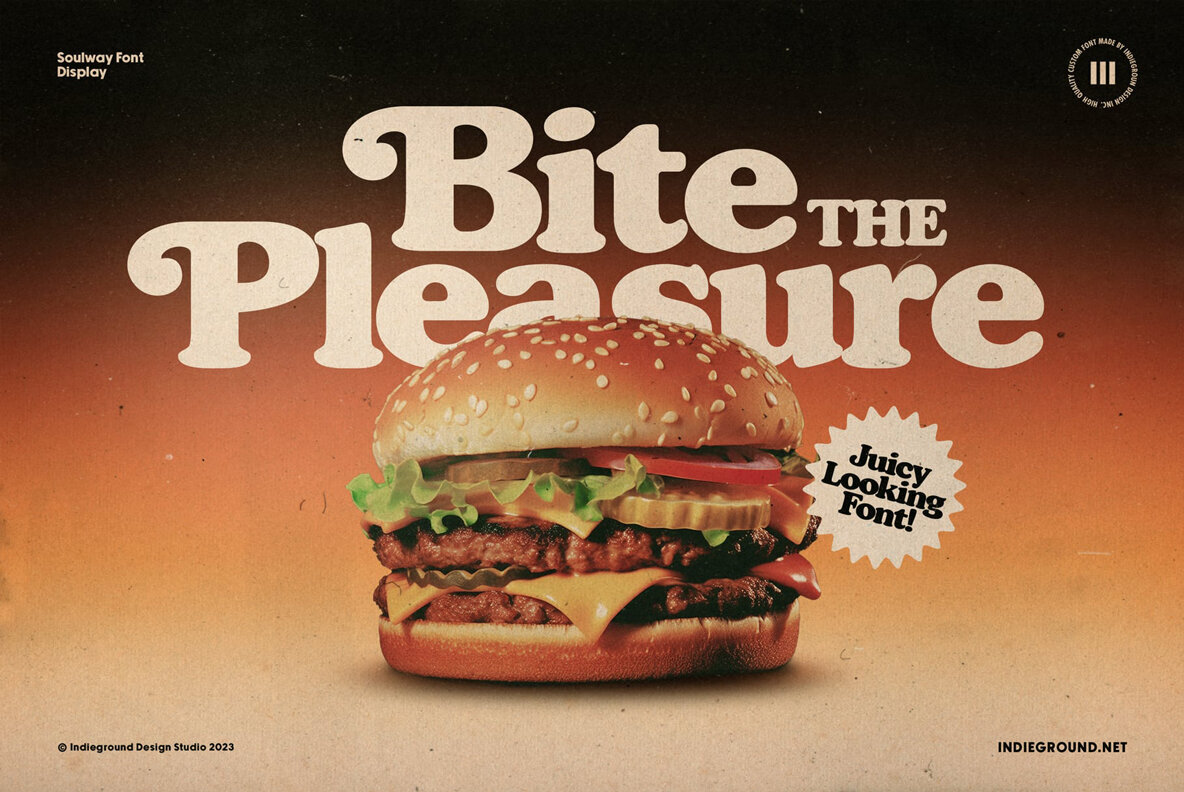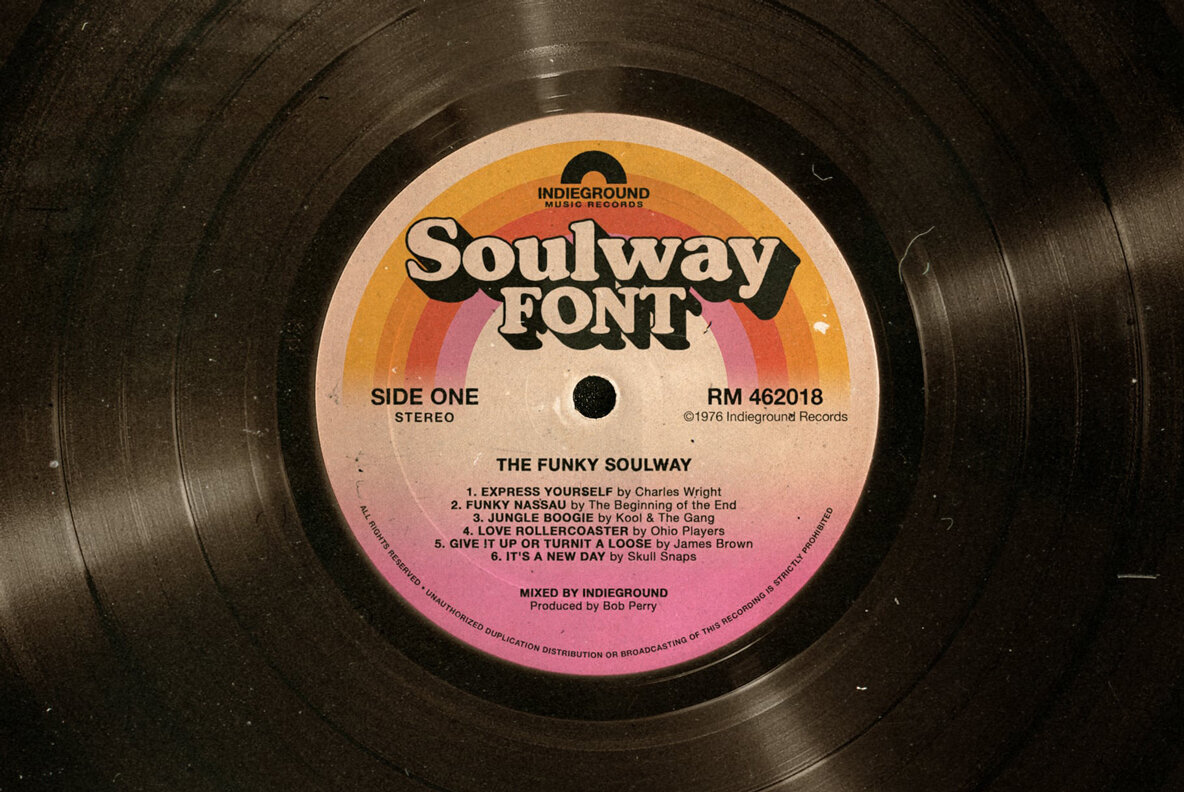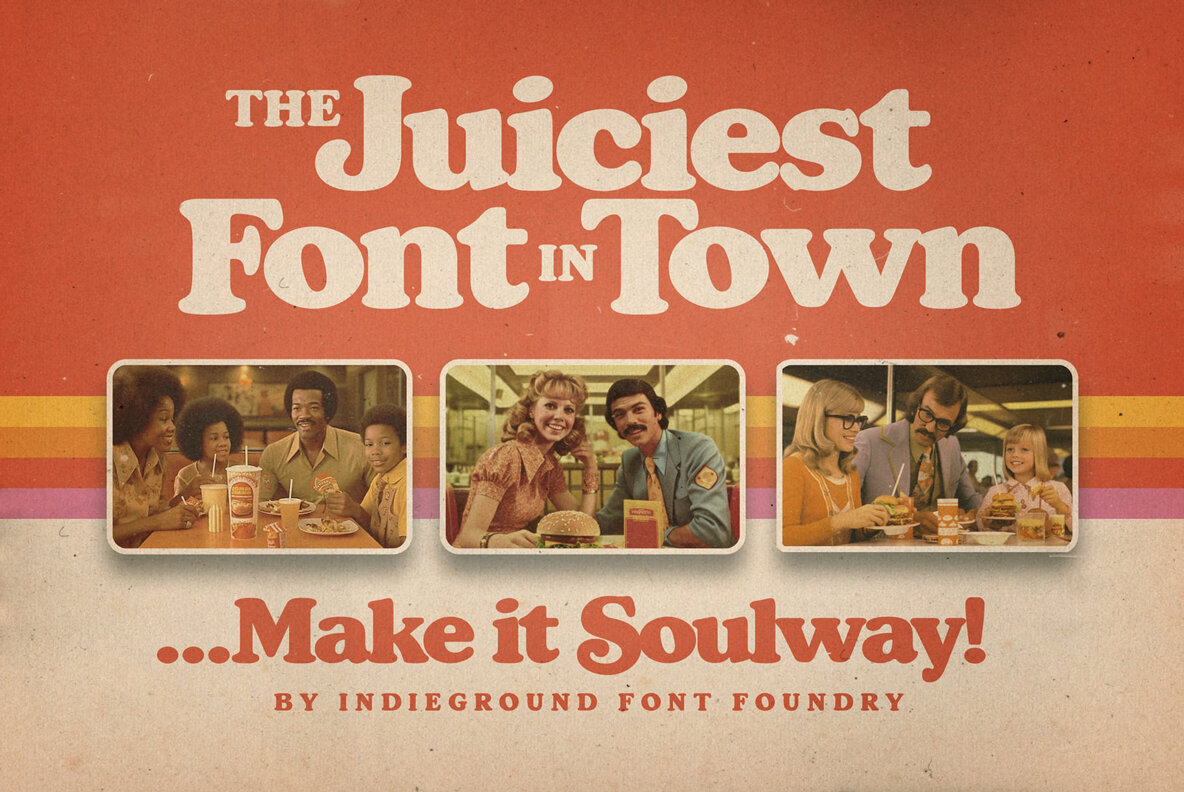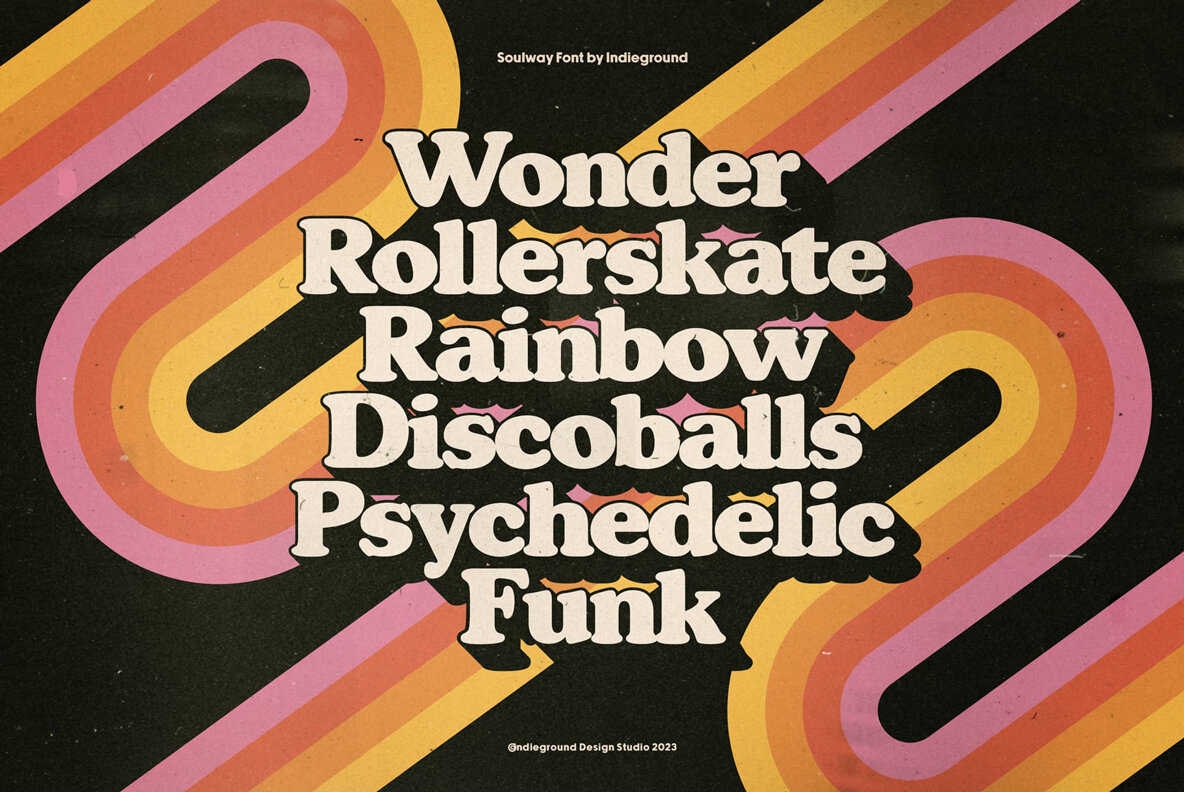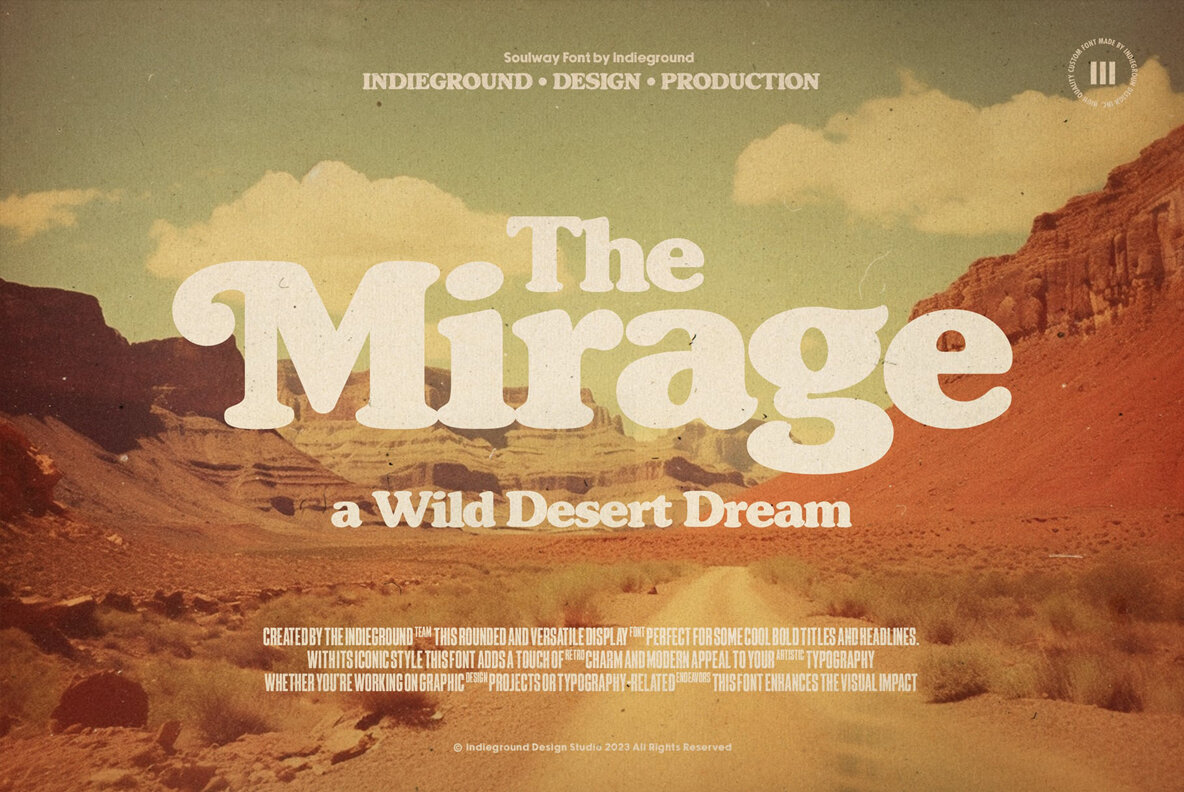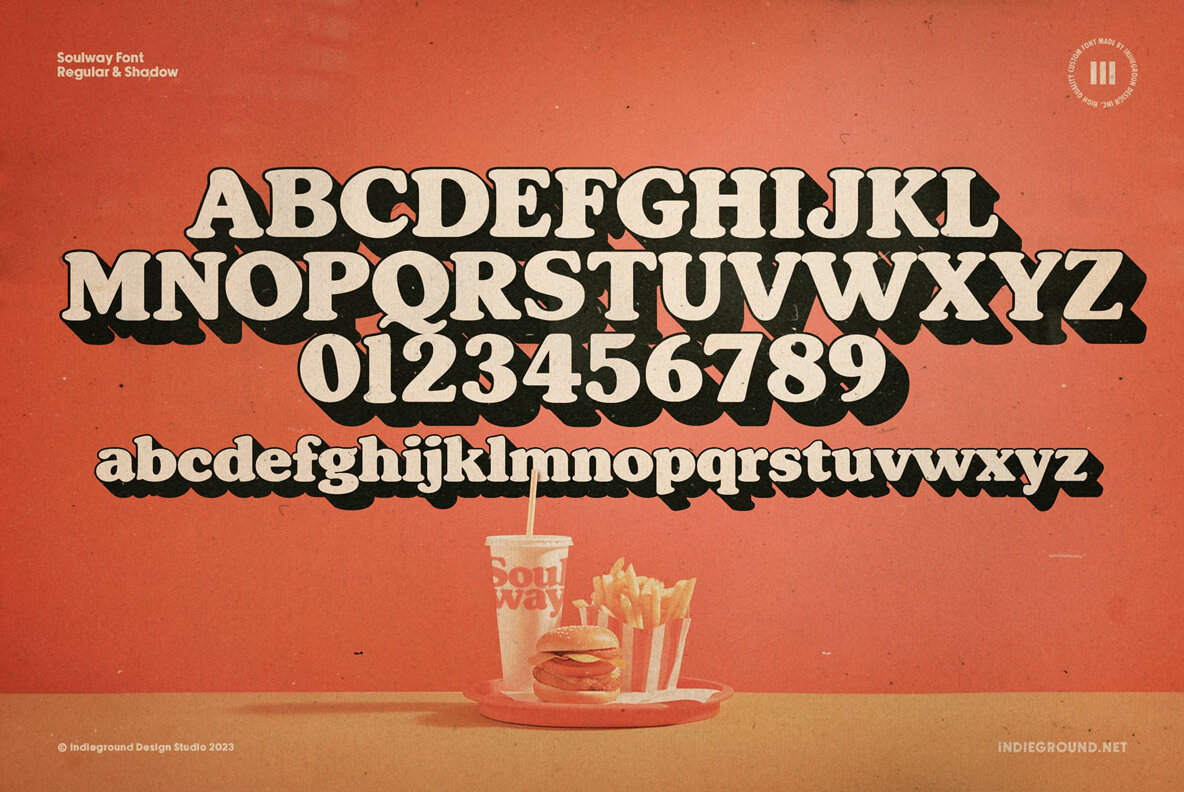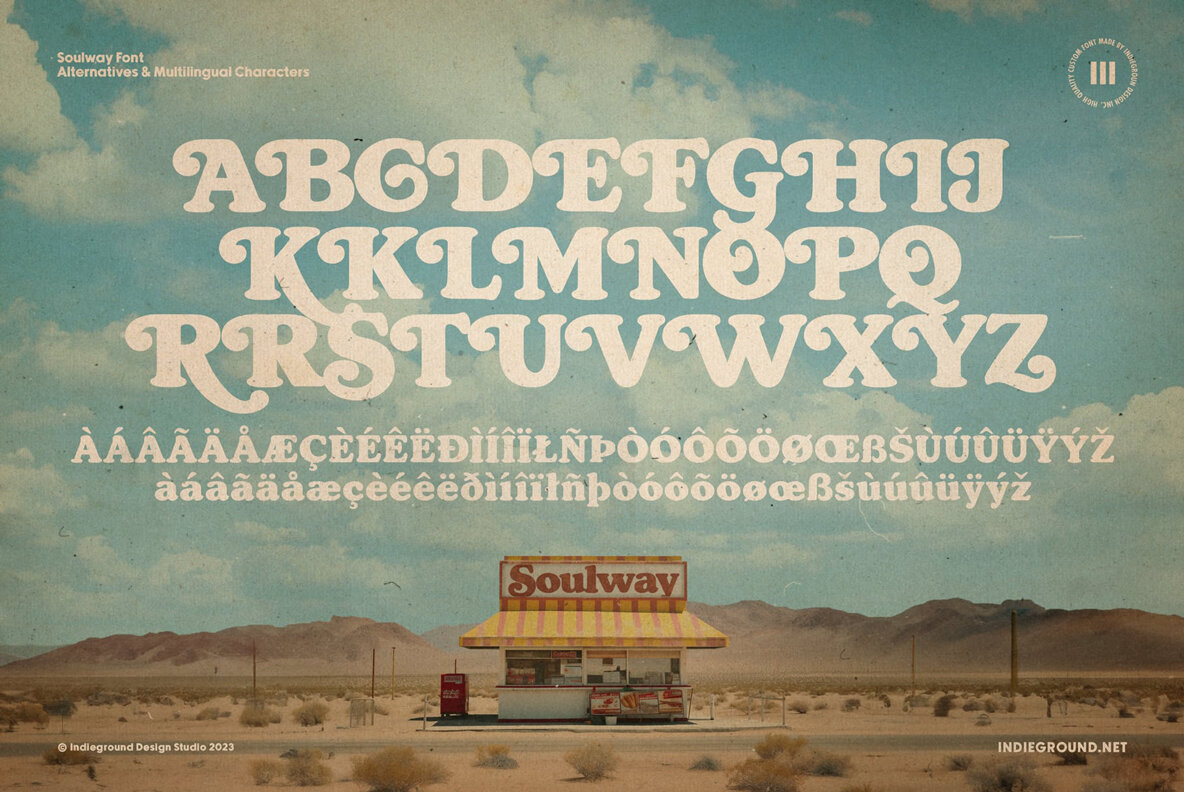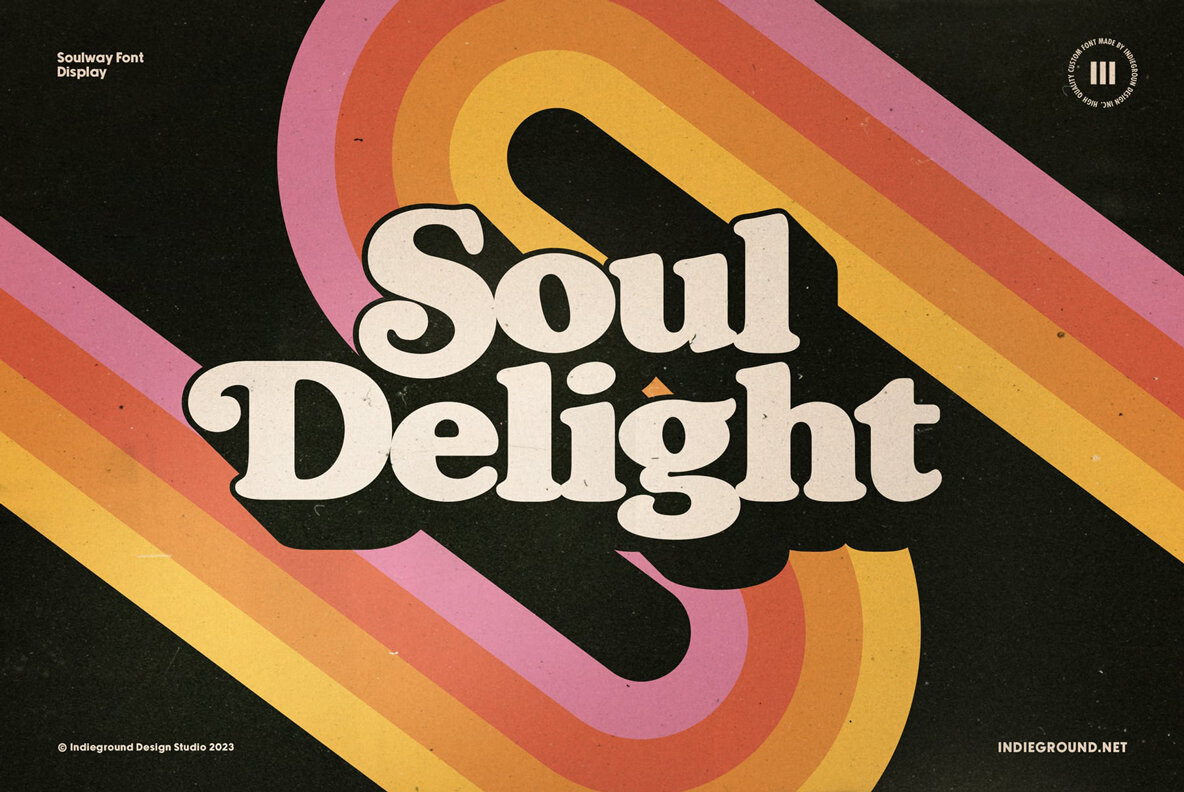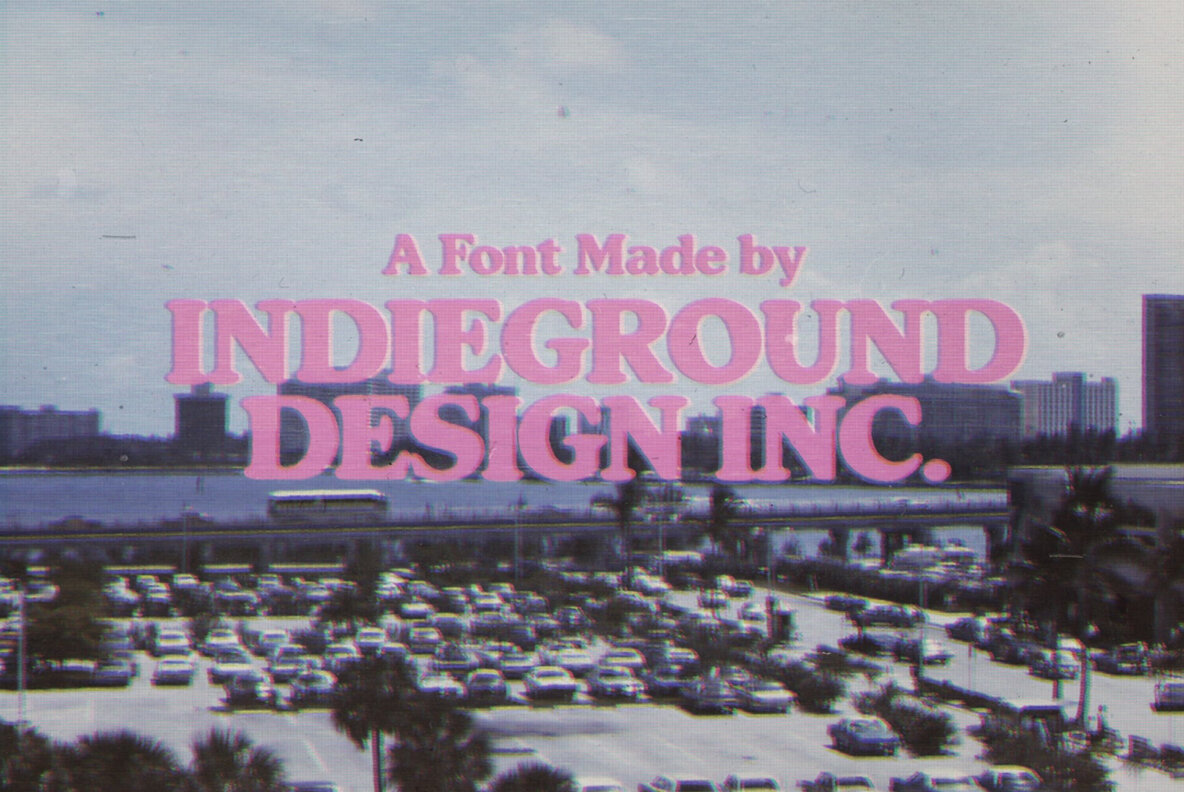
Soulway Font
Soulway Font by Indieground This bold, curvy serif font inspired by 70s atmospheres is ideal for giving a retro touch to your digital compositions. Inspired by one of the most iconic typefaces of the last century, this bold display font comes in regular and shadow versions. It can be used to create nostalgic artwork, album covers, posters, and flyers that give off the perfect vintage mood. On top of that, it is ideal for crafting standout, nostalgic pieces for your social media feed. Thanks to its classic curvy nature, this font will let your creativity flow, bringing back those juicy atmospheres we all love!